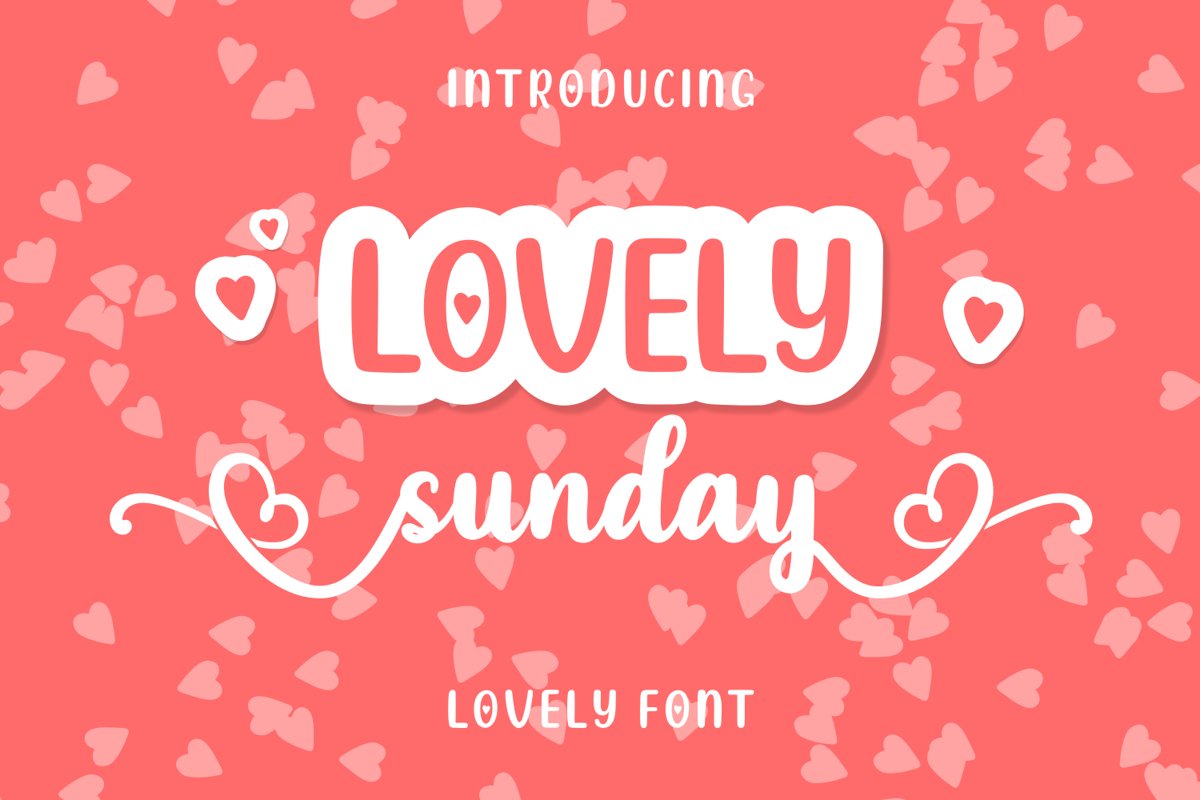
Lovely Sunday radiates warmth and life. With its stunning swashes, this
incredibly gorgeous and romantic script is the ideal font for wedding or
a wealth of special features including alternate glyphs.